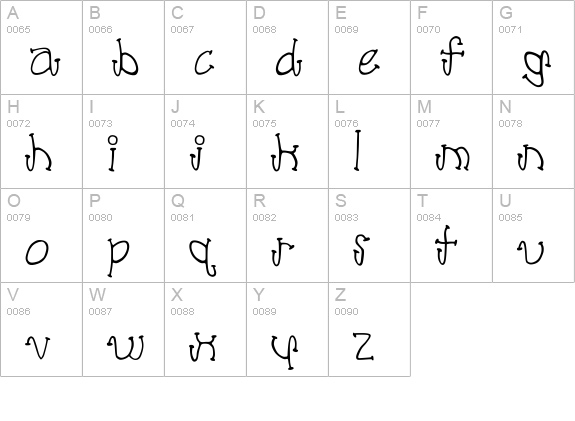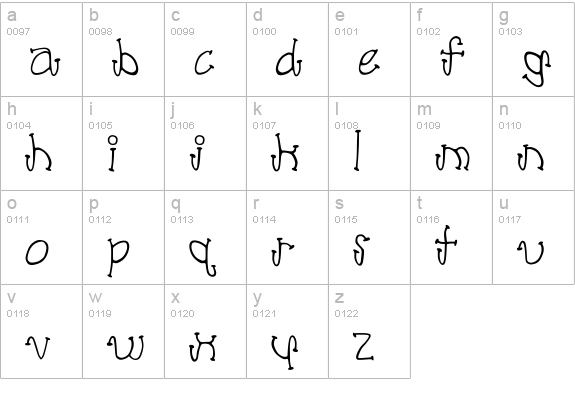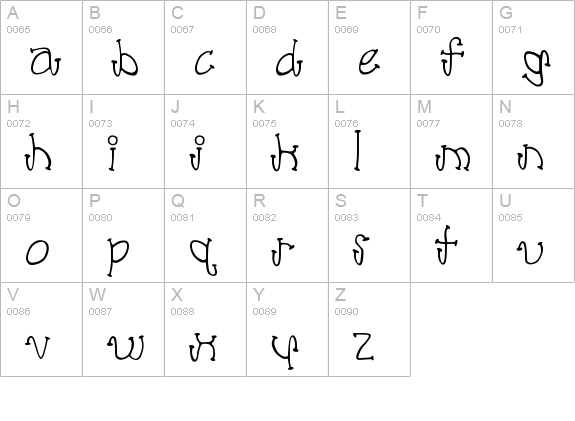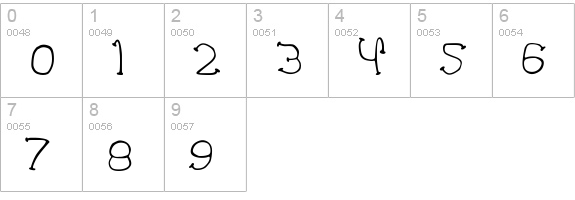
Introducing the enchanting and whimsical Poodle Lover font, perfect for all dog enthusiasts and typography lovers alike. This delightful typeface exudes elegance and charm, just like the beloved poodle breed it is inspired by. With its playful curves and sophisticated flair, Poodle Lover font adds a touch of sophistication to any design project. What's more, Poodle Lover font is completely free to download at FontsMarket.com! That's right, you can add this unique and stylish typeface to your collection at no cost. Whether you're creating invitations, posters, or branding materials, Poodle Lover font is sure to make a lasting impression. Don't miss out on this opportunity to elevate your designs with the beauty of Poodle Lover font - download it for free today!